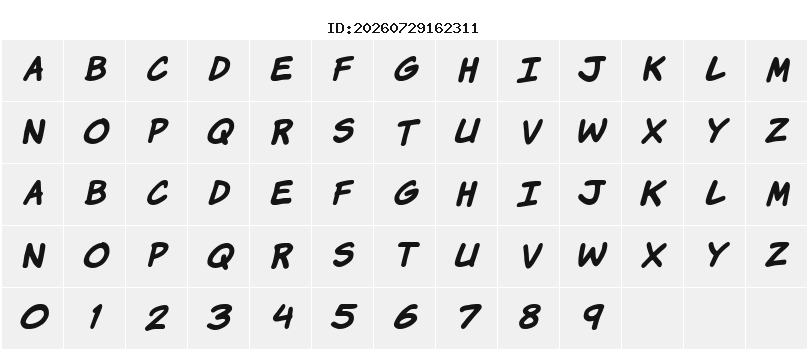
Komika Hand Preview
• Font Name: Komika Hand
• Full Font Name: Komika Hand Bold Italic
• Designer: WolfBainX & Apostrophe
About Komika Hand.ttf
Komika Hand.ttf is a modern, elegant sans-serif font designed for ultimate readability and visual harmony. Perfect for branding, headlines, web design, and print materials.